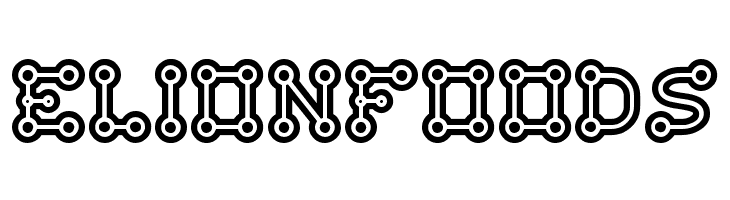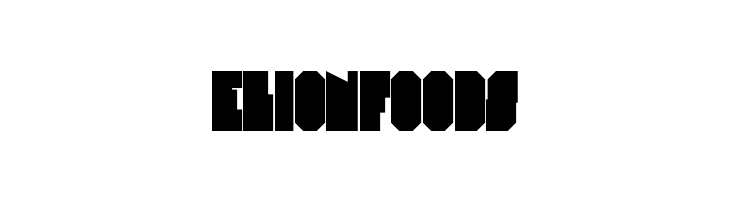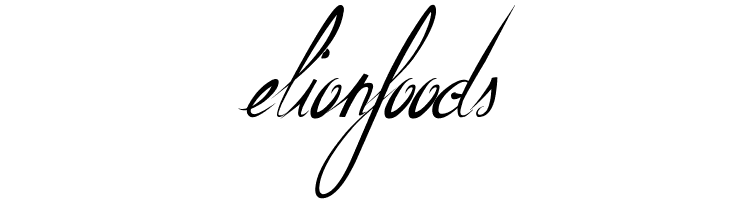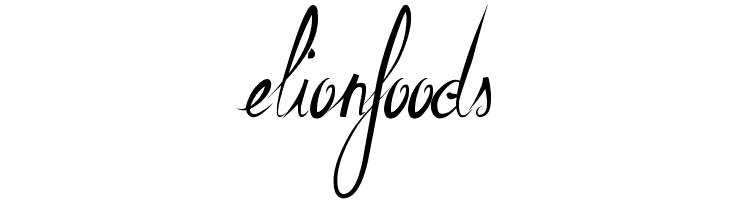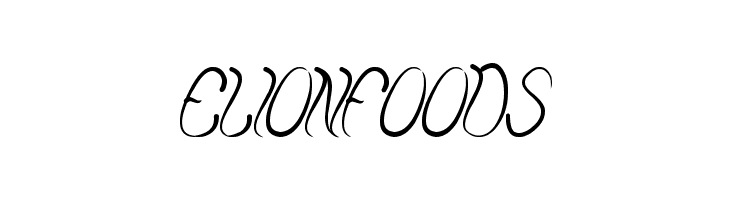
A modern, italic, outlined font with a dynamic and futuristic style.
A futuristic, geometric outline font with a modern, tech-inspired design.
A bold, geometric font with a futuristic, segmented design.
A bold, sketch-like font with a dynamic, hand-drawn appearance.
A bold, futuristic font with rounded edges and a geometric structure.
A playful, hand-drawn uppercase font with a quirky and whimsical style.
A playful and energetic handwritten font with fluid, connected strokes.
An edgy, thorn-like decorative font with sharp, jagged strokes.
A playful, whimsical font with flowing, cursive-like strokes and decorative flair.
An elegant, calligraphic font with high contrast and graceful curves.
A dynamic, brush-style font with expressive strokes and fluid motion.
A playful, curly font with noodle-like strokes and a whimsical appearance.
A modern, geometric sans-serif font with tall, narrow characters.
A bold, italicized font with a dynamic and energetic style.
A bold, graffiti-inspired font with sharp angles and a dynamic, hand-drawn style.
A sleek, modern font with thin, geometric lines and minimalistic design.
A sleek, minimalist font with thin, geometric lines and a modern aesthetic.
A modern, minimalist font with thin, elongated strokes and geometric shapes.
A futuristic, geometric font with rounded edges and a bold, uniform style.
A bold, robust font with thick strokes and a strong presence.
A bold, stencil-style font with geometric cutouts and a modern, industrial look.
A modern, decorative font with a cursive, handwritten style.